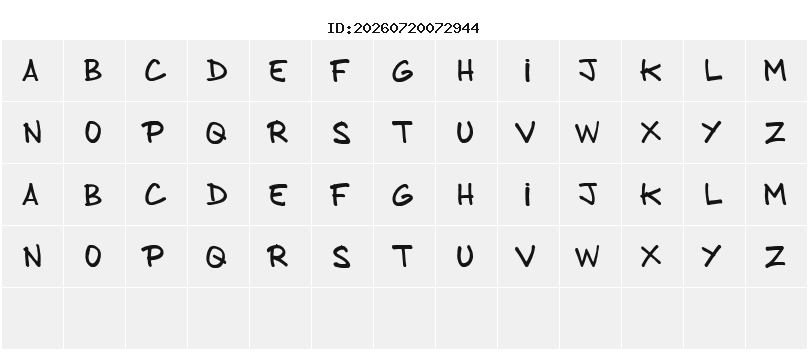
from brush to caps Preview
• Font Name: from brush to caps
• Designer: dcoxy Medina Gregory
About from brush to caps.ttf
from brush to caps.ttf is a modern, elegant sans-serif font designed for ultimate readability and visual harmony. Perfect for branding, headlines, web design, and print materials.